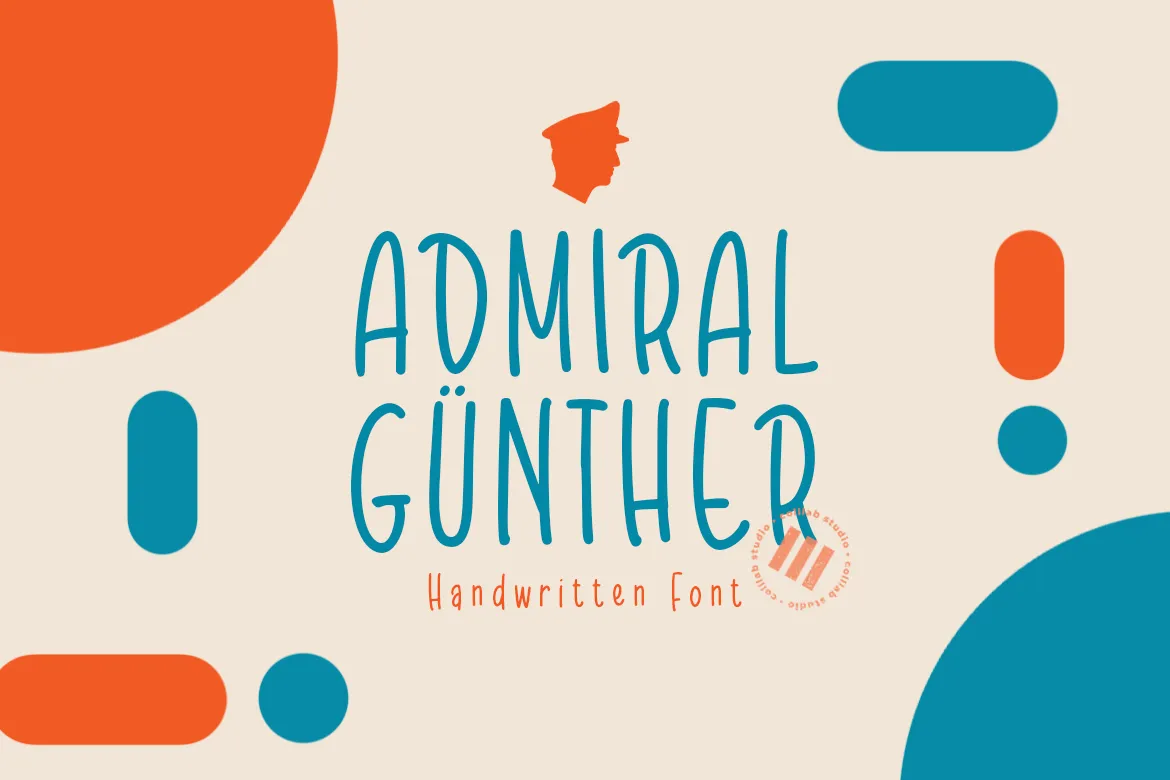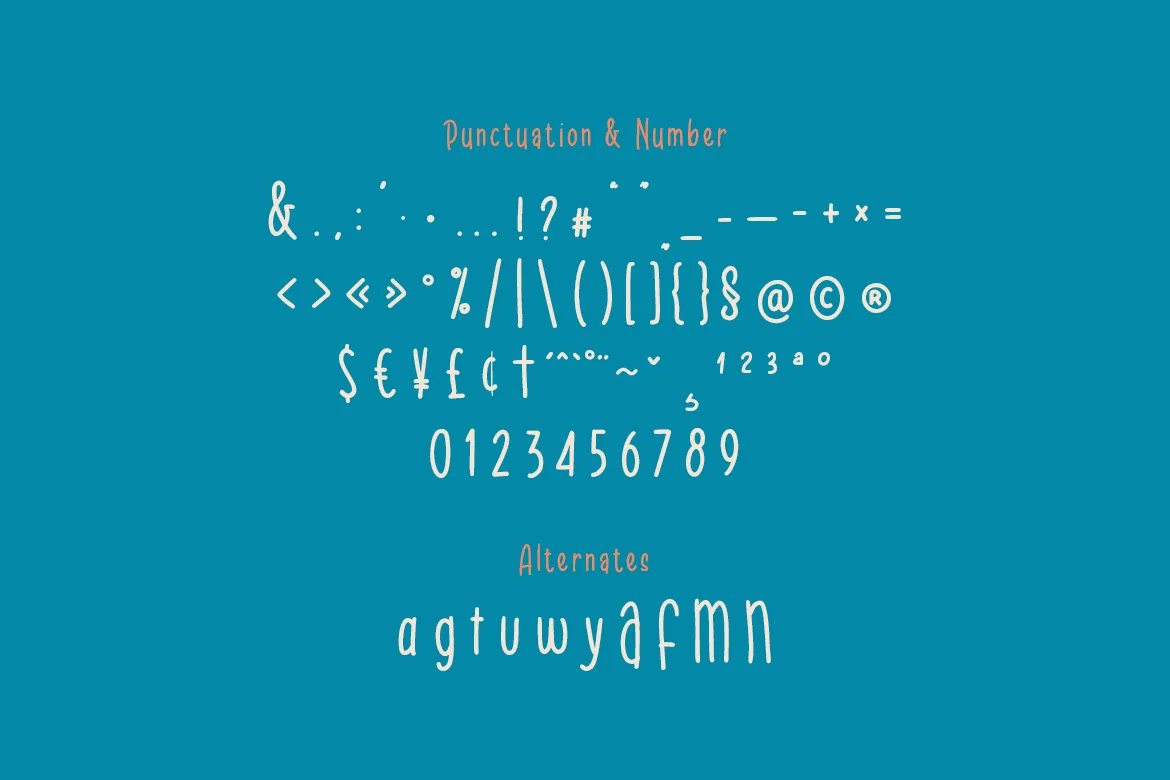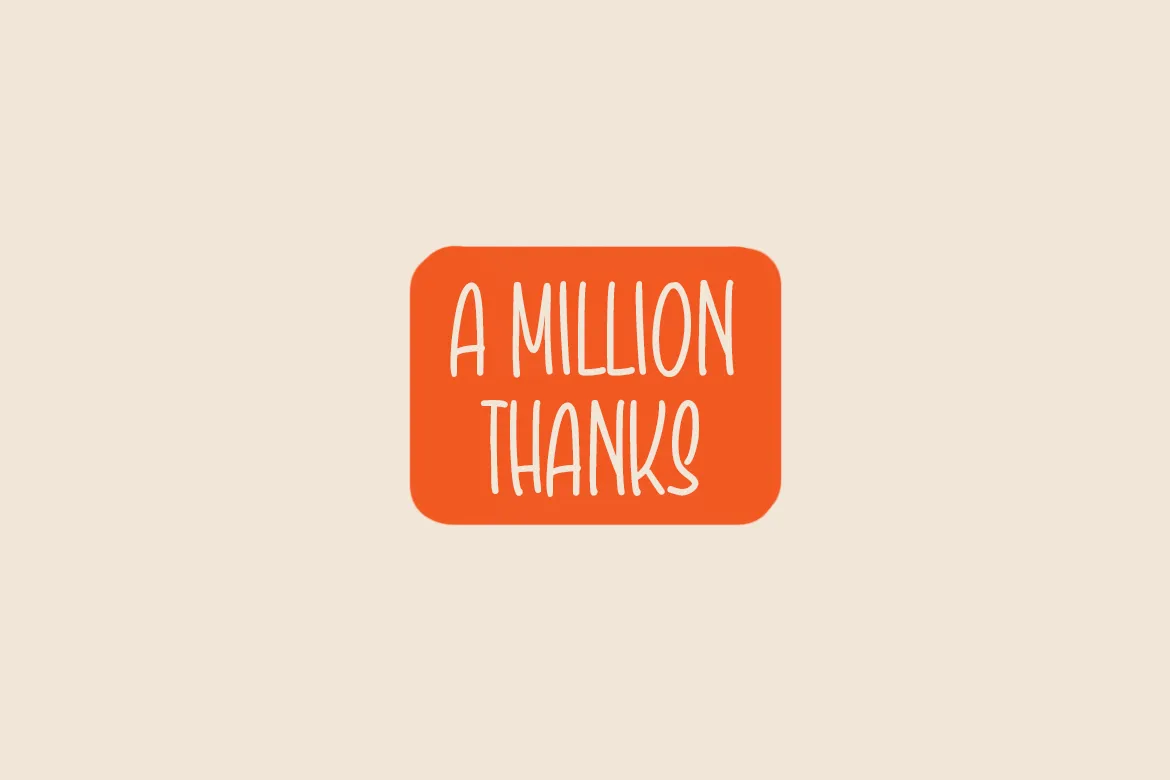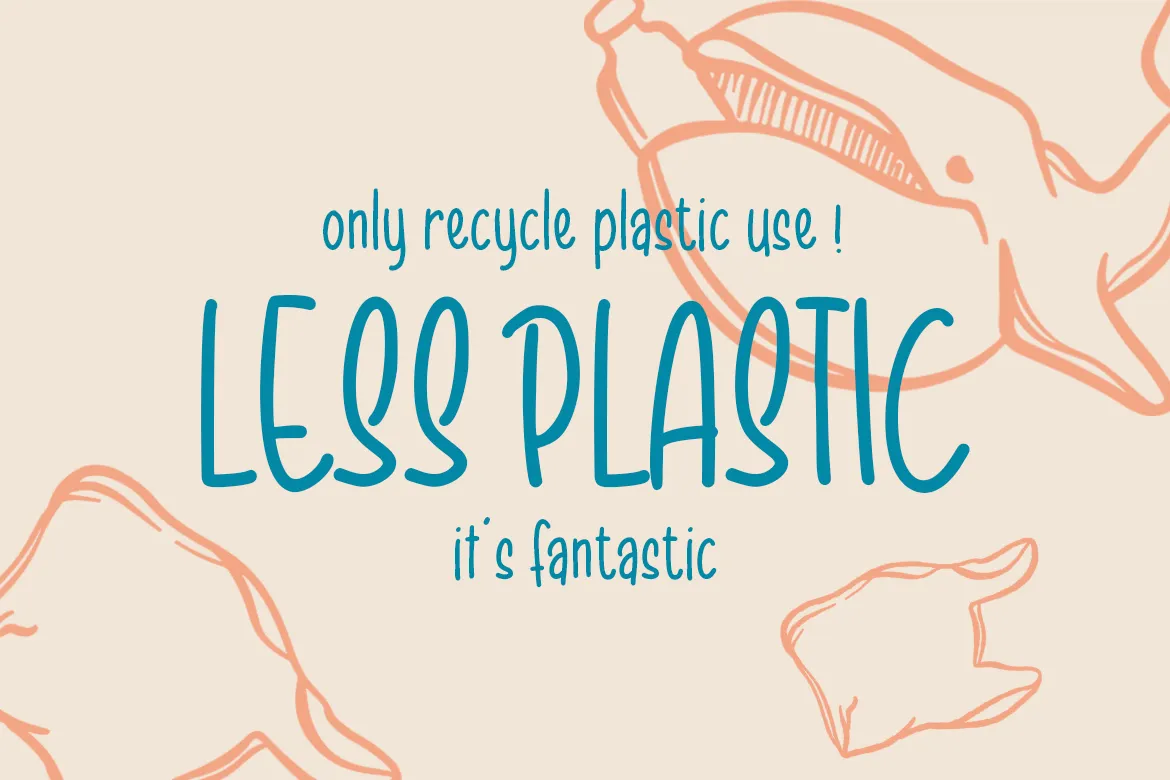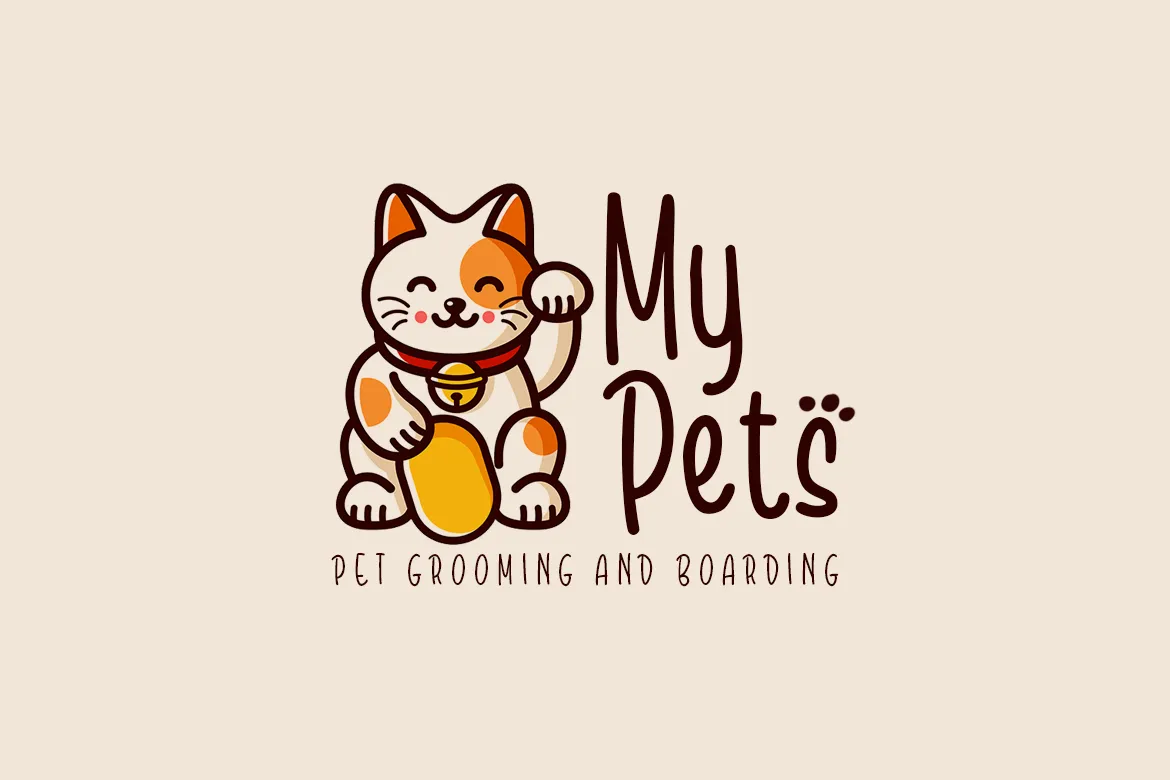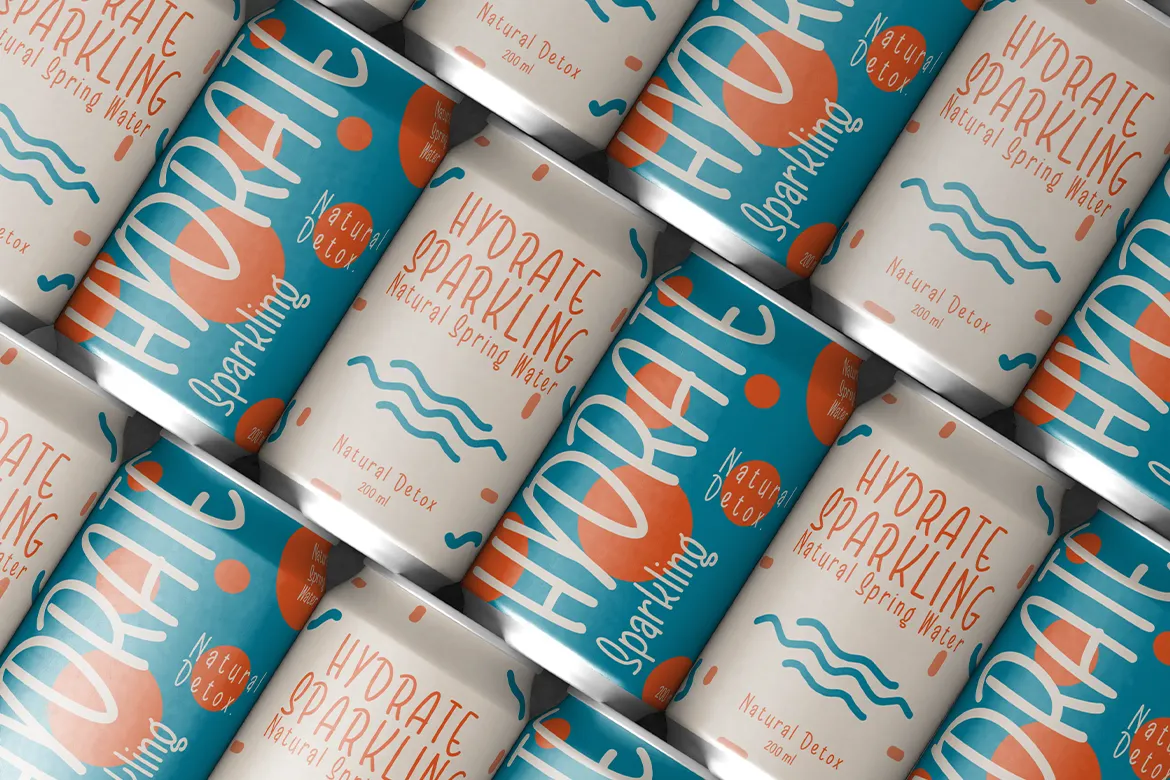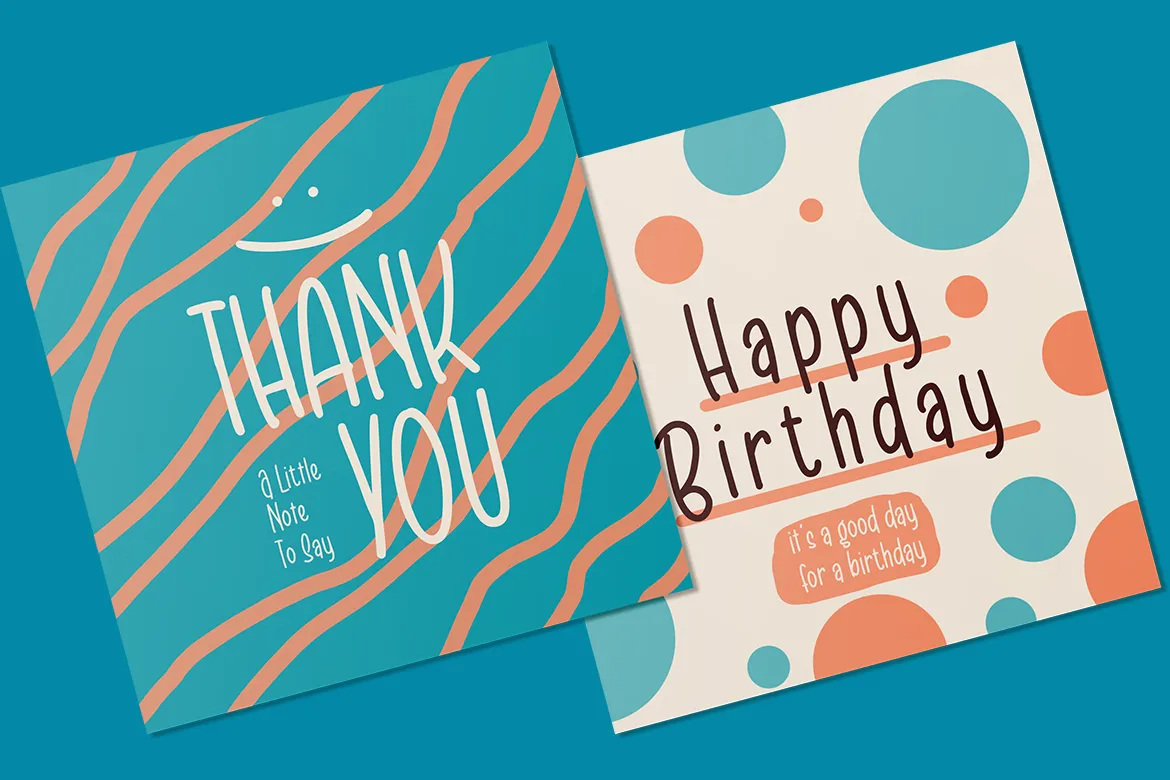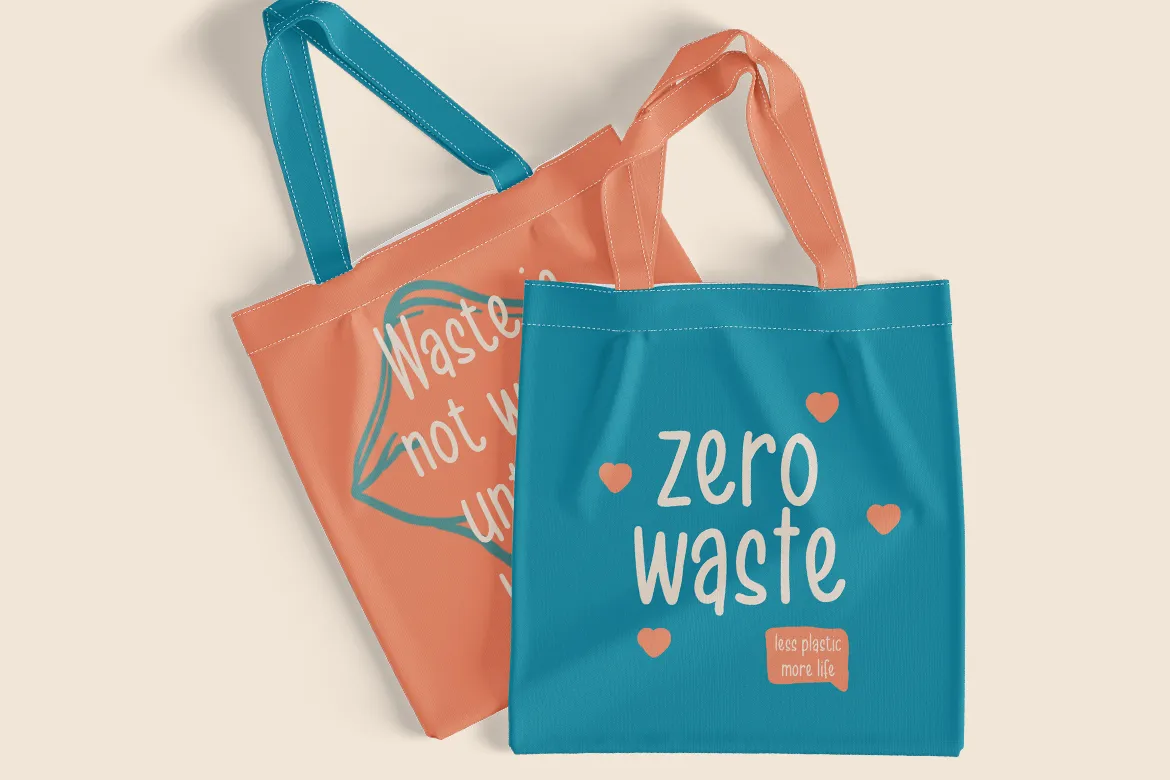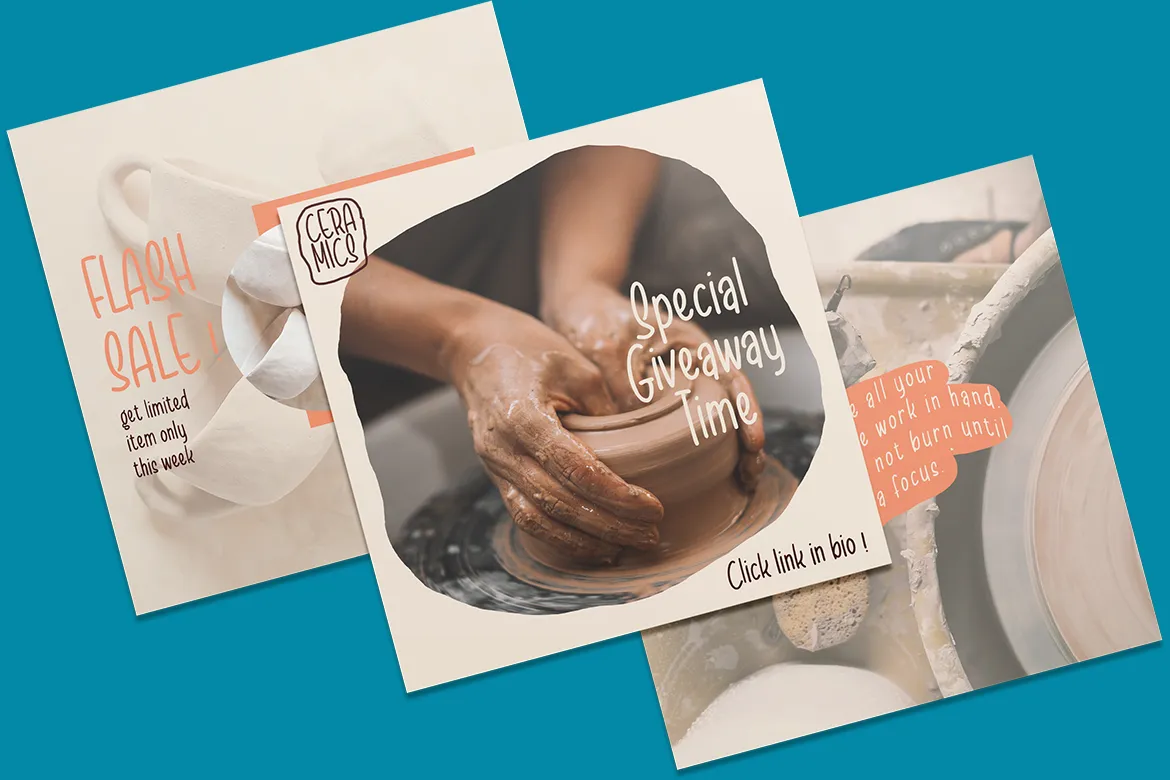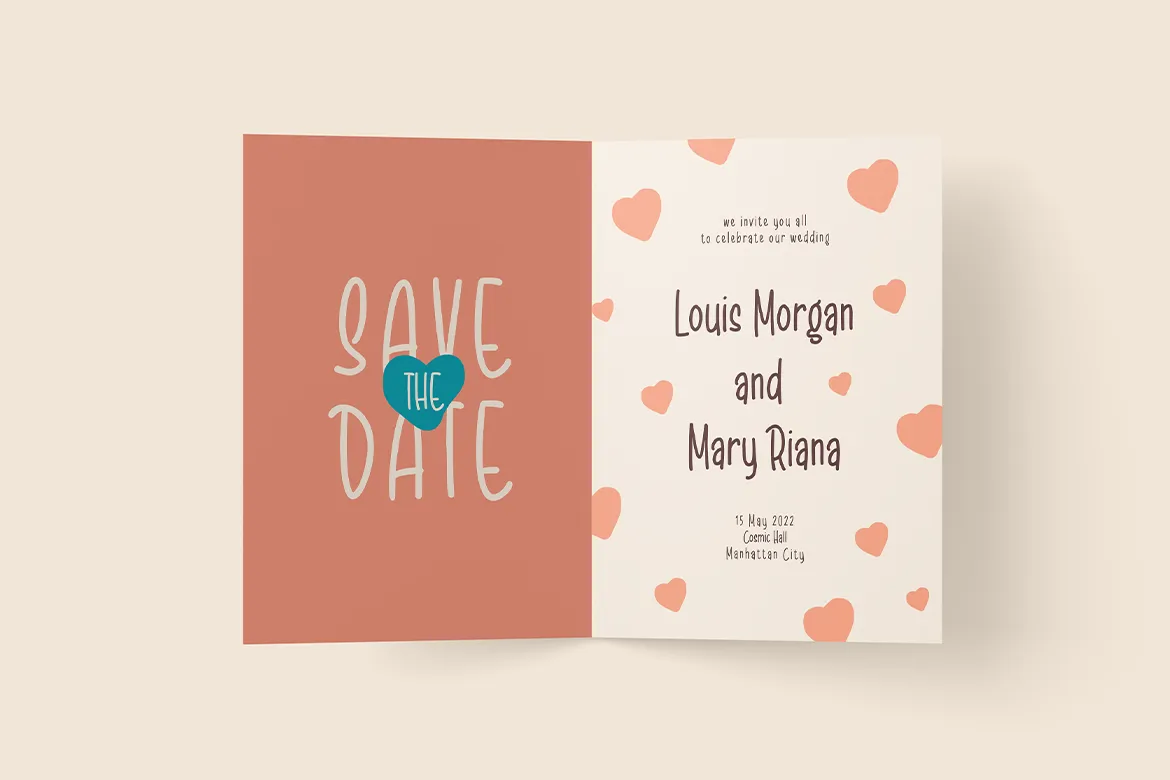
Admiral Gunther
Admiral Günther is a hand drawn typeface inspired by the American Modernist movement of the early 1900s. Its sans serif shape creates a classy, chic and authentic effect when paired with well-chosen colors and graphics.
With a full set of uppercase and lowercase letters, as well as a large number of extra characters that allow you to add vintage flair to your designs, Admiral Günther is a perfect fit for your next logo design, branding, packaging, or other media project.
Use Admiral Günther in combination with one or two other well-chosen typefaces and create a design that stands out while keeping it professional.
Admiral Günther is a hand drawn typeface inspired by the American Modernist movement of the early 1900s. Its sans serif shape creates a classy, chic and authentic effect when paired with well-chosen colors and graphics.